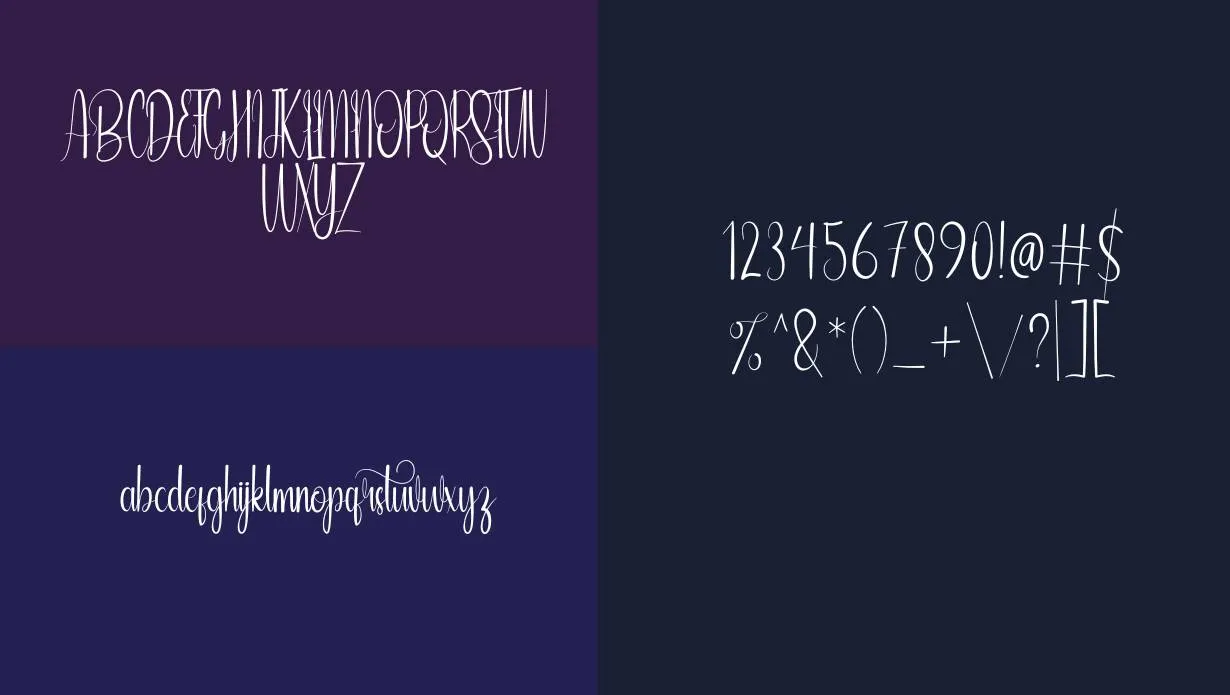
Heart Font is a sweet typeface designed to add a romantic touch to your designs. With its heart-shaped details, this font is perfect for expressing love and warmth in various creative projects.
Use Heart Font in invitations, greeting cards, or any endeavor where you want to infuse a sense of affection and tenderness, creating a visually appealing and emotionally resonant atmosphere.
| Name | Heart Font |
| Designer | Ikrar Bey Khubaib |